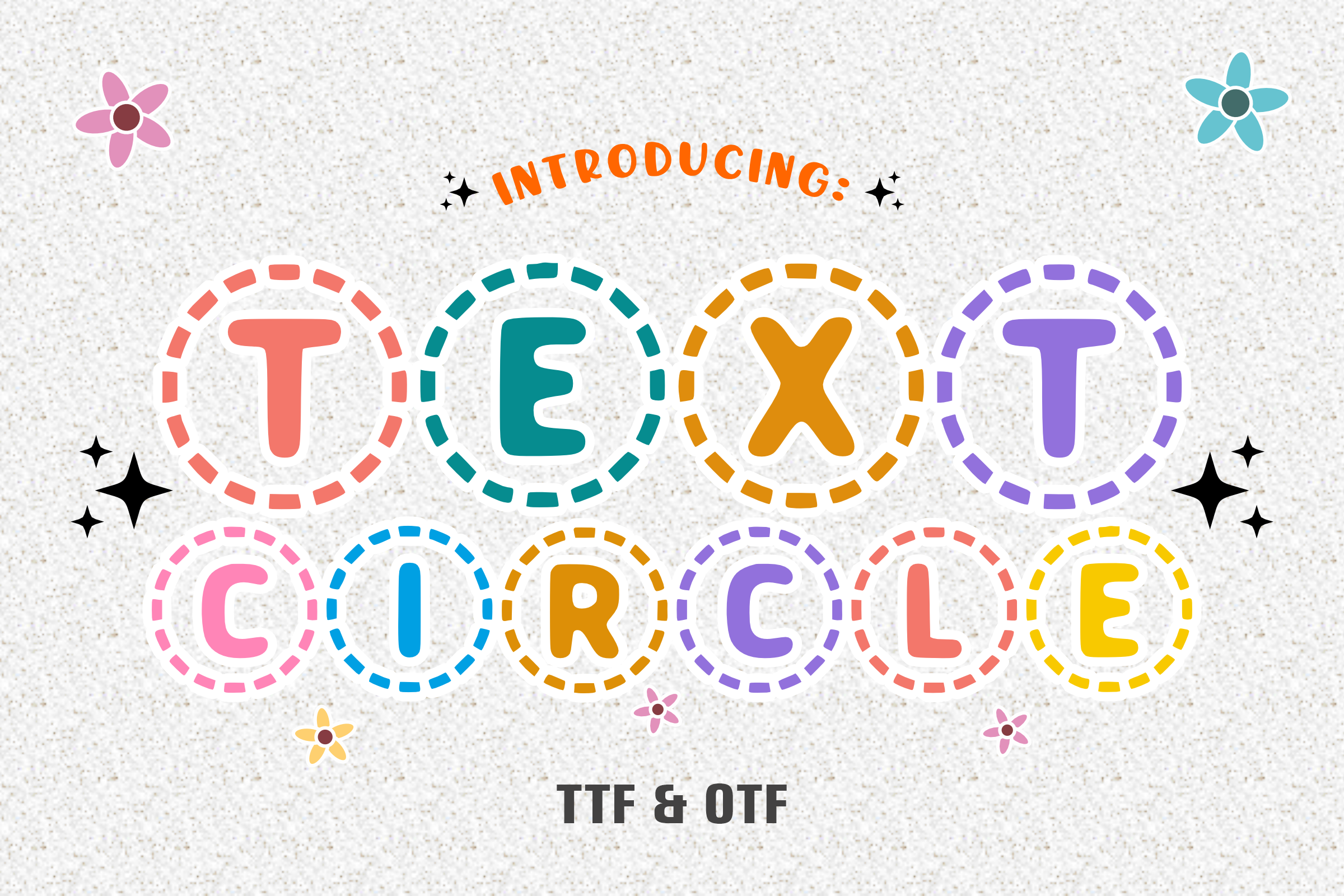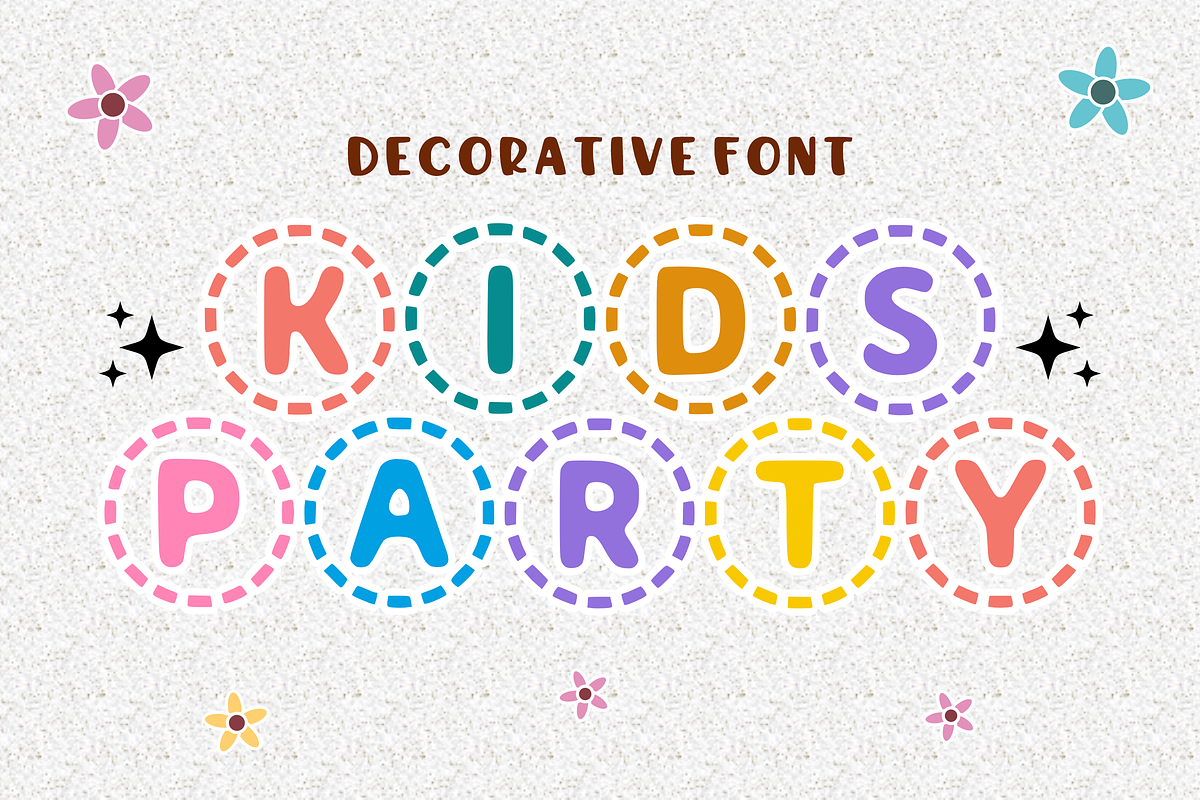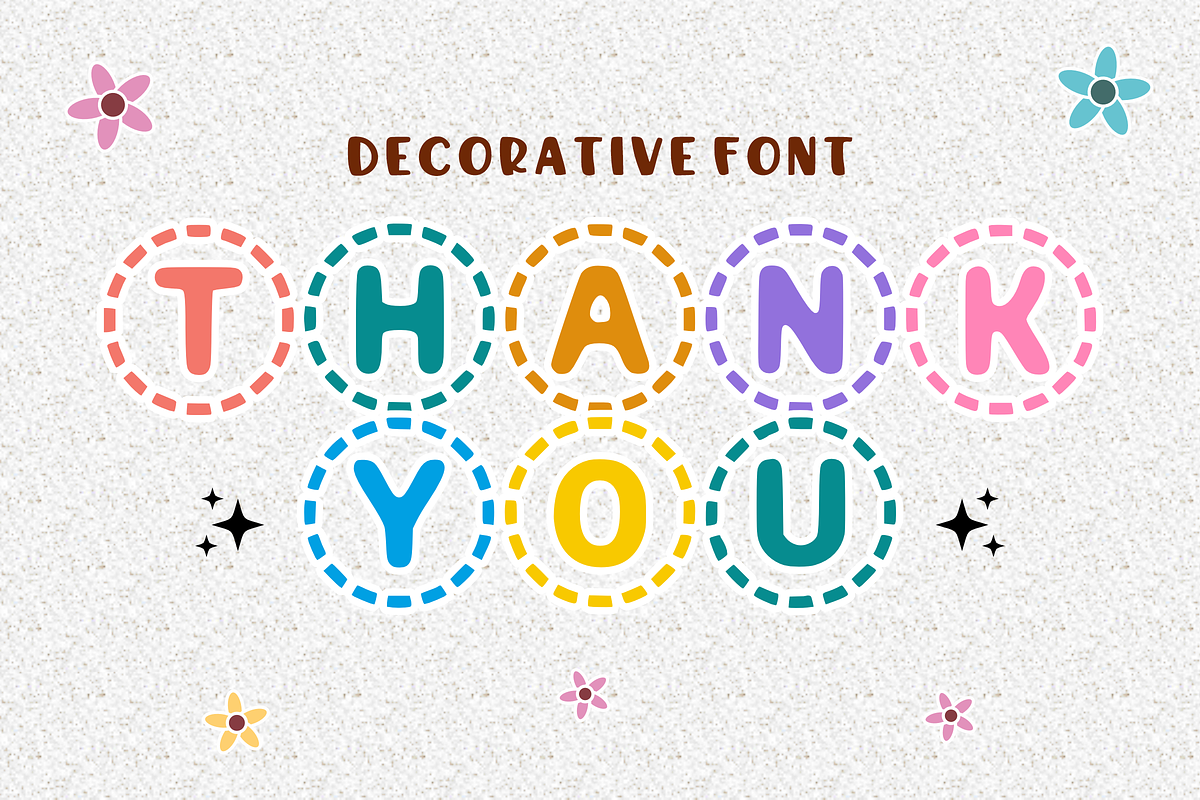
Text Circle - Comic Font Types
Discover “Text Circle,” a contemporary yet charming font where every character nests in its own delightful circle for simple identification. It’s the ideal choice for enhancing sublimation designs on t-shirts, mugs, tote bags and more, injecting an air of unique flair onto every item. This font also breathes life into animations and comic titles, lending a burst of creativity everywhere it is applied. Immerse your imagination within “Text Circle” and soar high in design realms. The more you engage with our offerings through likes and followers, the more it fuels us to create unrivaled and fascinating fonts for you. We deeply appreciate your support!